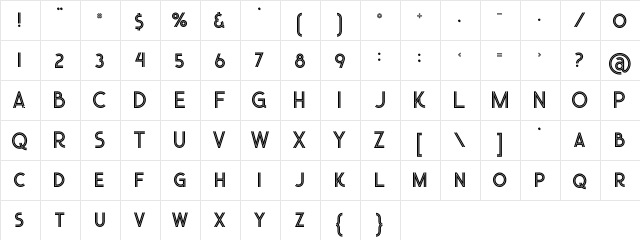
Urban Inline Inline
Design Context for Urban Inline Typeface
Urban Inline brings ornamental detail and strong personality to headlines and identities, where visual impact matters more than quiet functionality.
Font Pairing: Pair with a clean neutral sans-serif for body copy to let Urban Inline's character lead without overwhelming the composition.
Pro Tip: Treat Urban Inline as the centrepiece of your typographic hierarchy. One strong heading set in a decorative face can carry an entire layout.